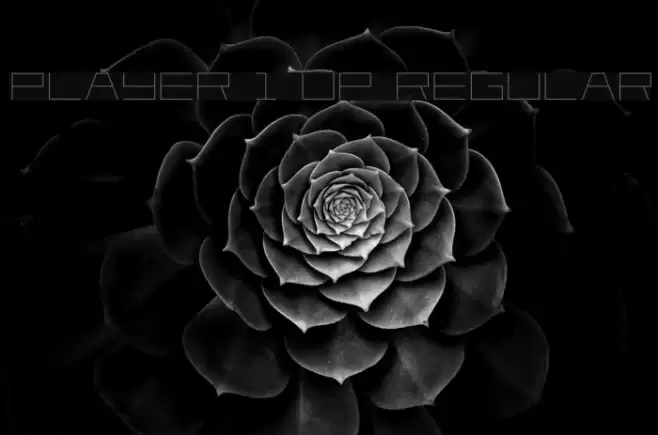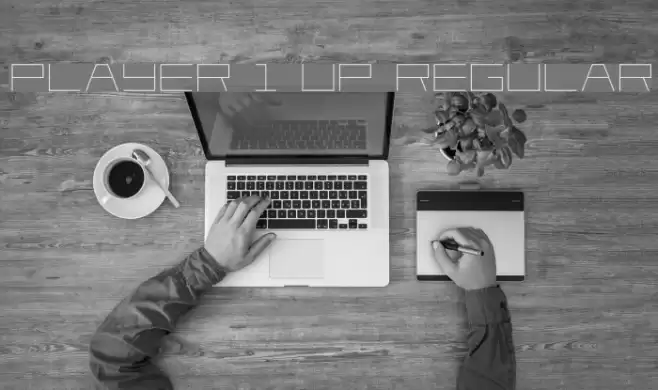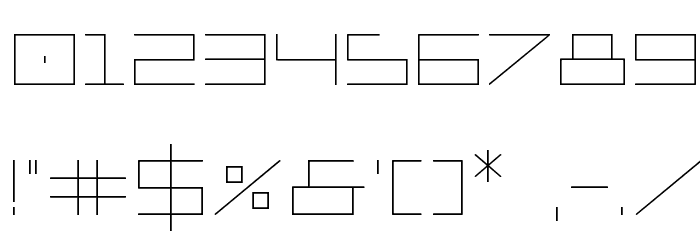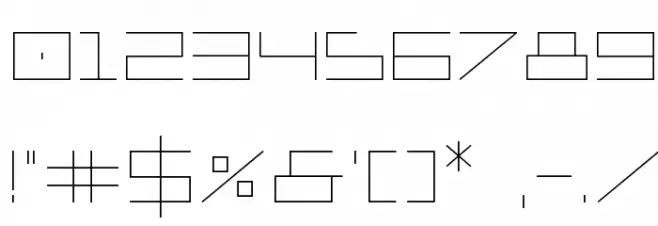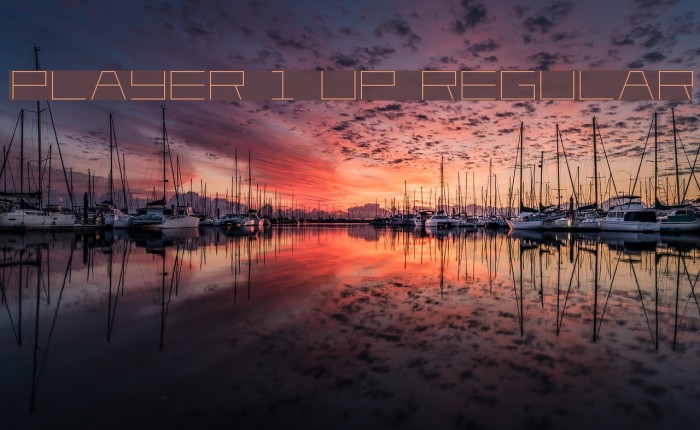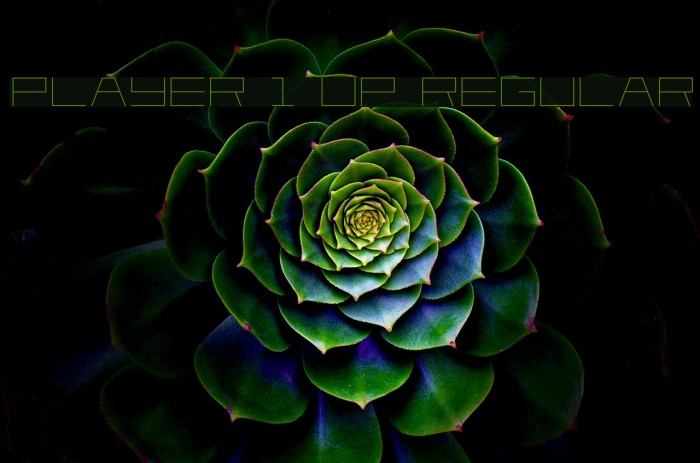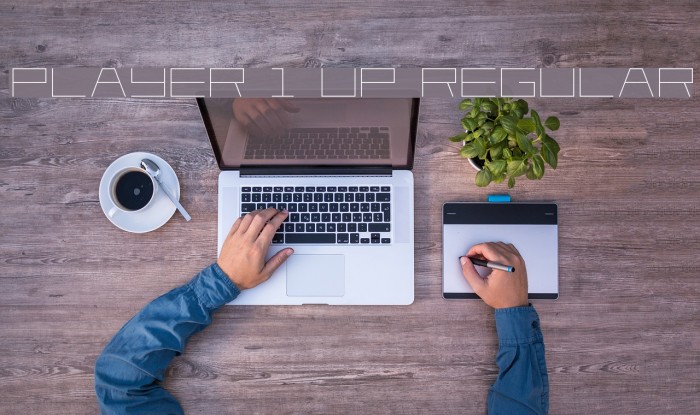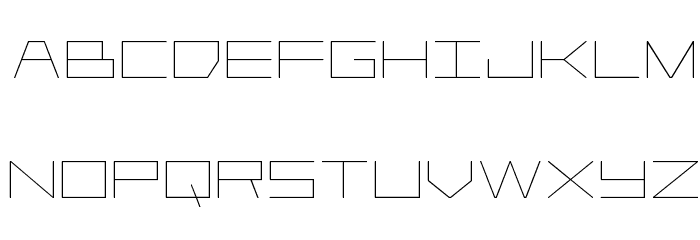
Player 1 Up Regular Font
Player 1 Up Regular Description
This font features a geometric, futuristic design with a minimalistic approach. The characters are constructed with straight lines and sharp angles, giving it a digital and modern appearance. The uppercase and lowercase letters maintain a consistent style, with a uniform stroke width that emphasizes clarity and simplicity. The numerals and special characters follow the same design principles, ensuring a cohesive look across all elements. This font is ideal for projects that require a sleek, tech-inspired aesthetic.
A geometric, futuristic font with straight lines and sharp angles from Futuristic fonts.
- Proposed Projects: Ideal for tech branding, video game interfaces, sci-fi posters, and digital art projects.